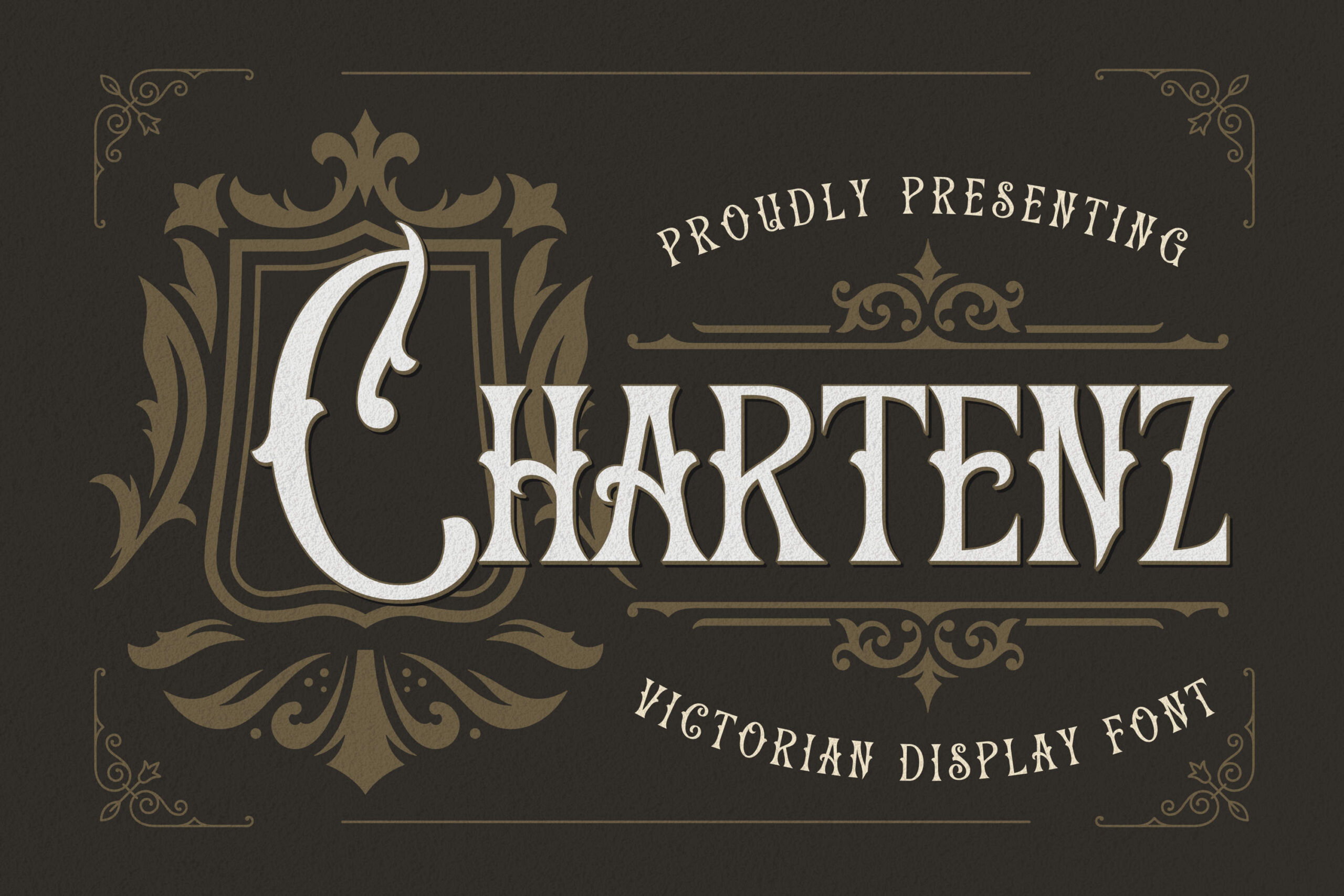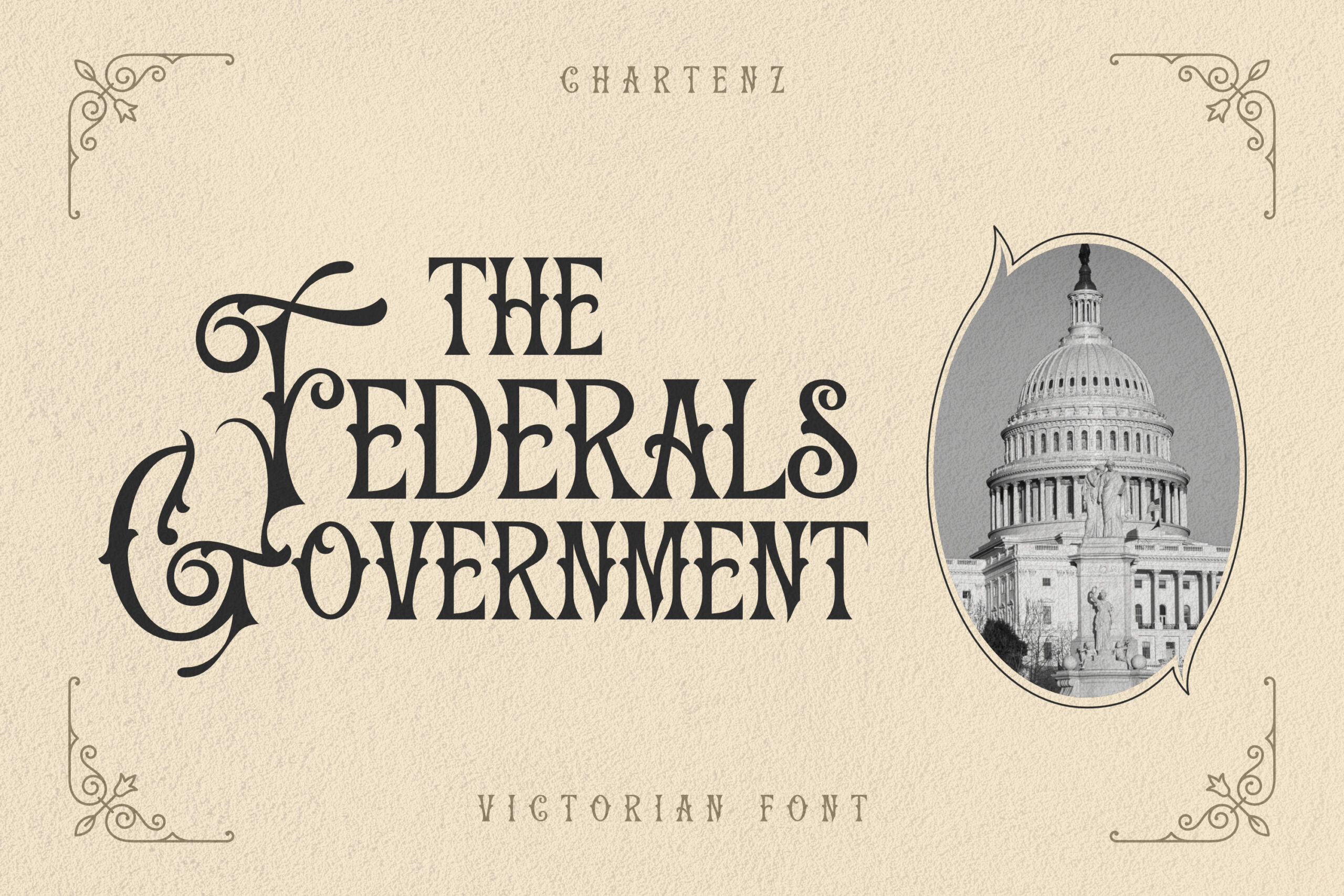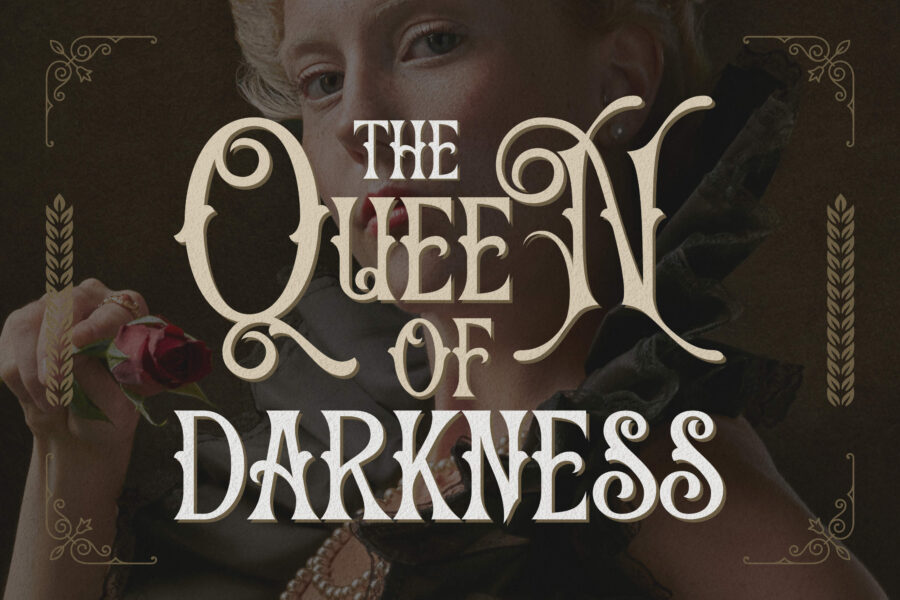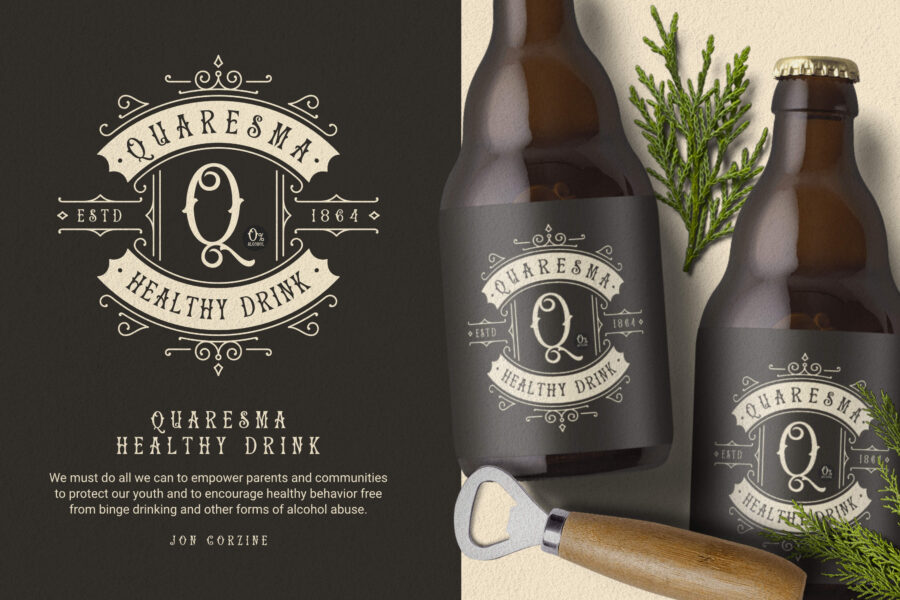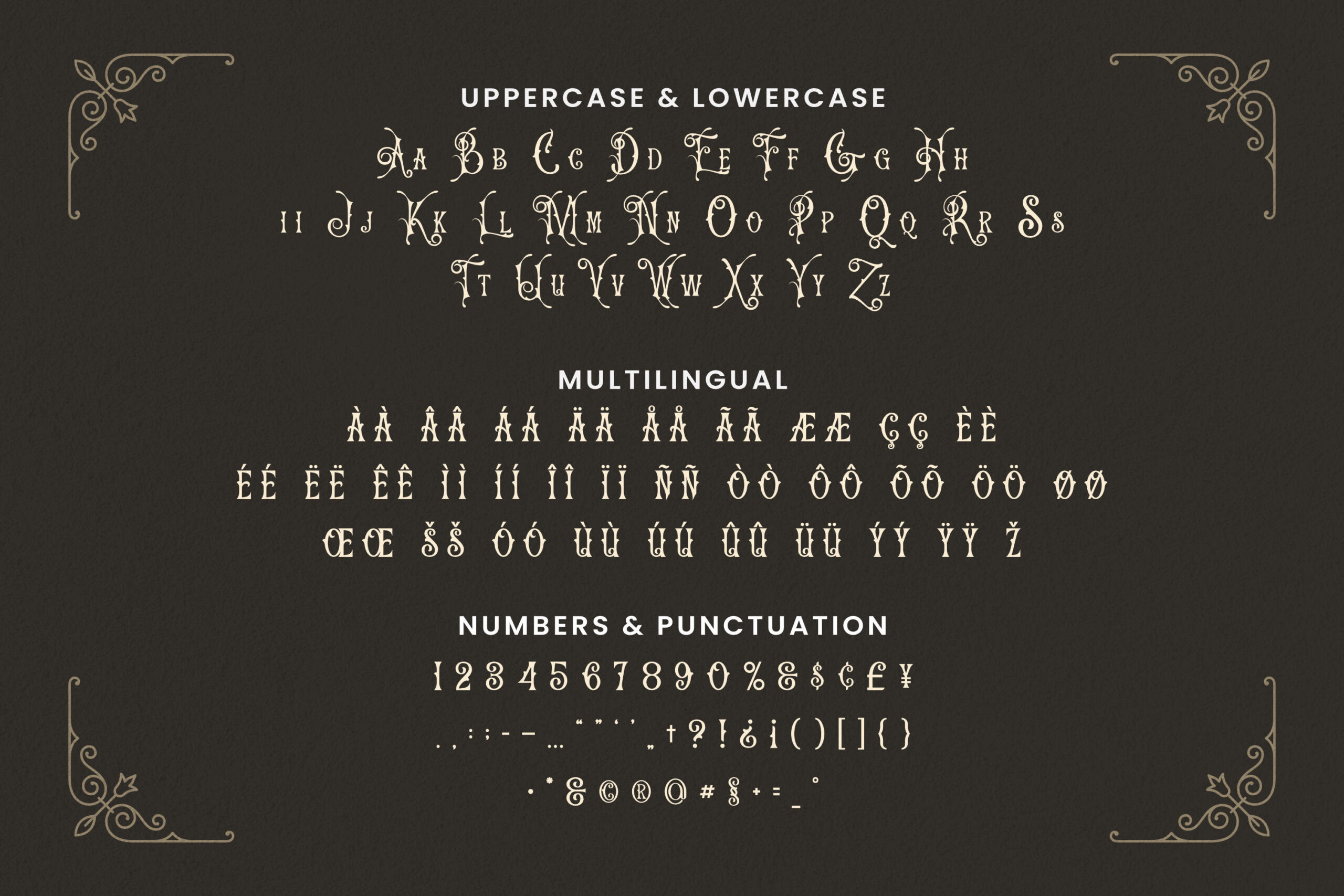
Chartenz is a bold and ornate Victorian display font that exudes elegance, prestige, and historical flair. Designed with intricate curves and decorative accents, this typeface is perfect for projects that require a touch of regal sophistication and vintage character. Ideal for packaging, whiskey labels, classic branding, posters, or period-themed titles, Chartenz captures the spirit of 19th-century ornamental typography.
The font features uppercase and lowercase letters, full multilingual support, numbers, and punctuation. Ensuring flexibility across both modern and classic applications. Whether you’re designing for a royal event invitation, antique logo, or boutique product branding, Chartenz adds a sense of timeless beauty and ornamental richness to your work.
Chartenz
Ovoz Type